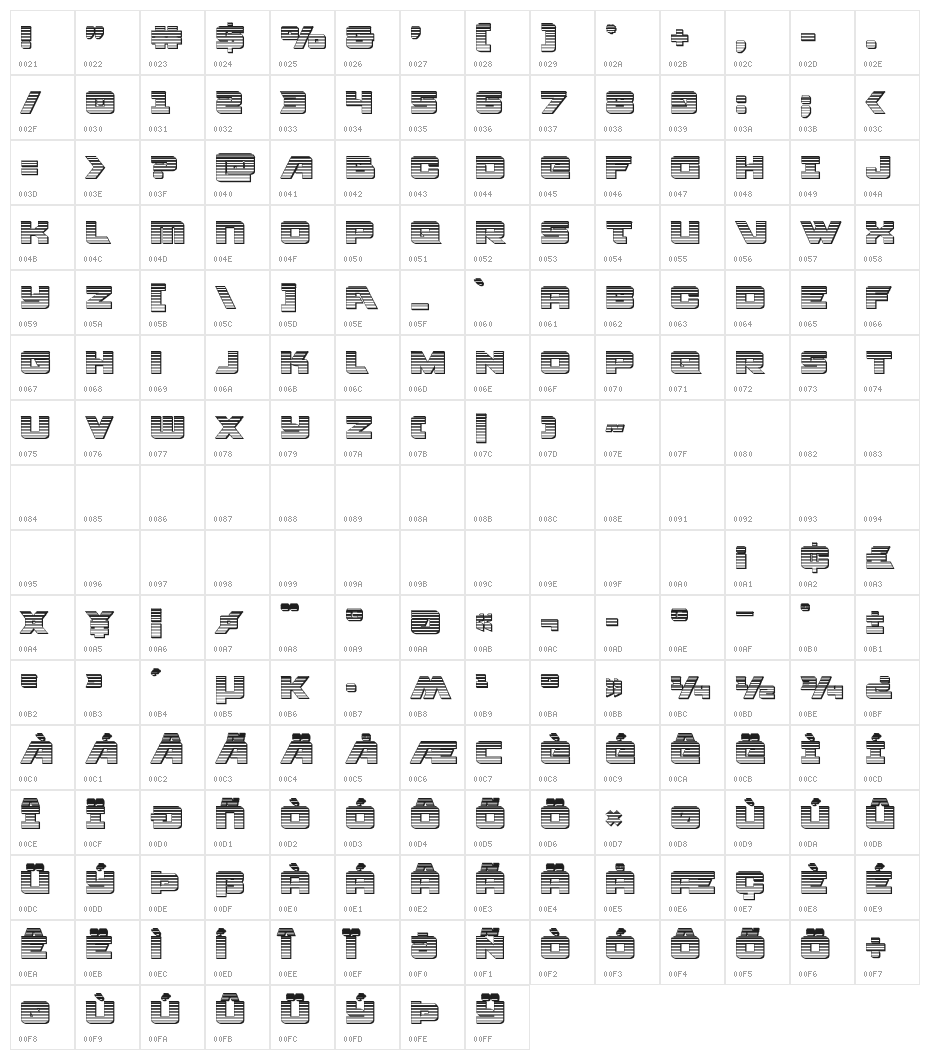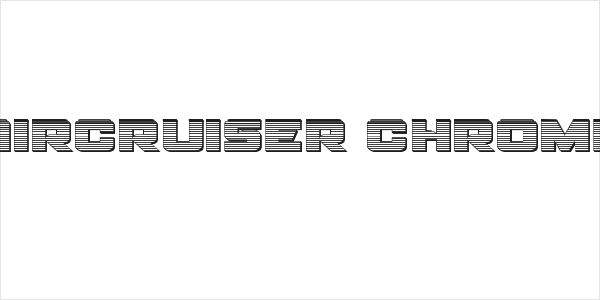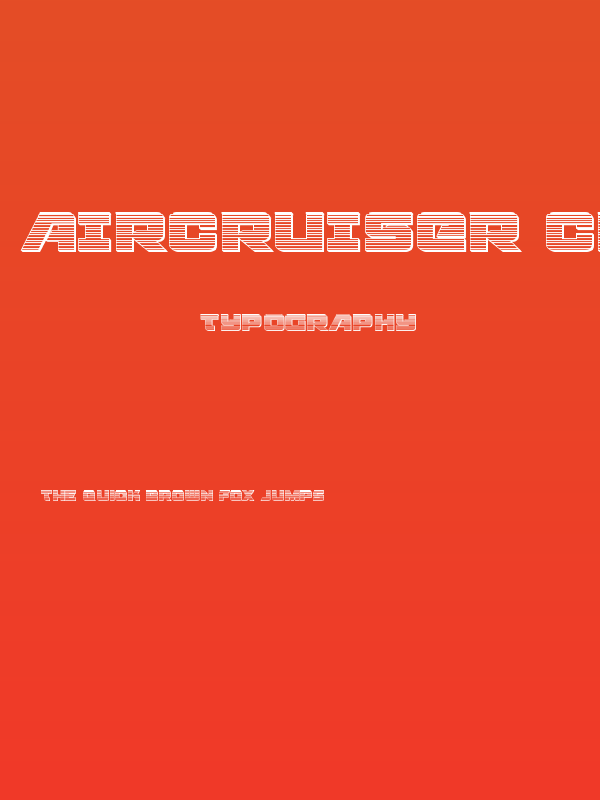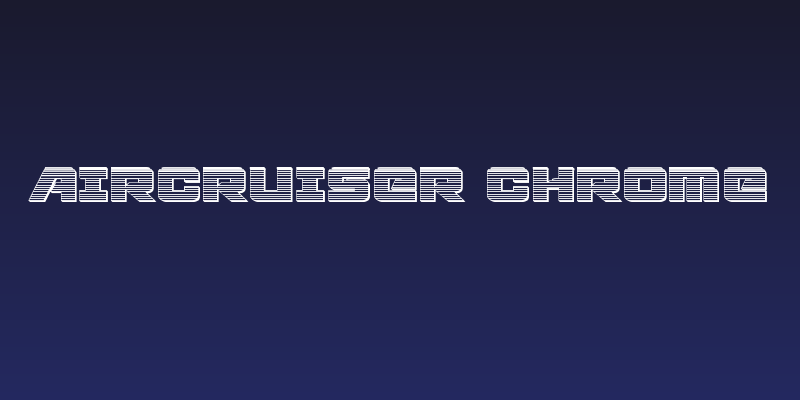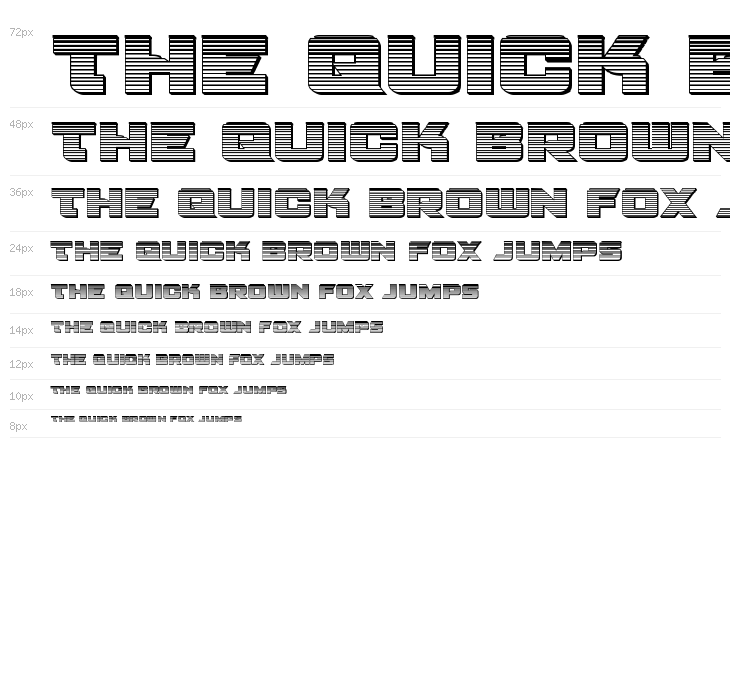
Aircruiser Chrome Font
Aircruiser Chrome Description
This font features a bold, futuristic design with a chrome-like appearance. Each character is composed of multiple horizontal lines, creating a layered, three-dimensional effect. The uppercase letters are distinct and geometric, with sharp angles and a sense of movement. The numbers and special characters follow the same design principles, ensuring consistency across all glyphs. This font's unique style makes it ideal for projects that require a modern, tech-inspired look.